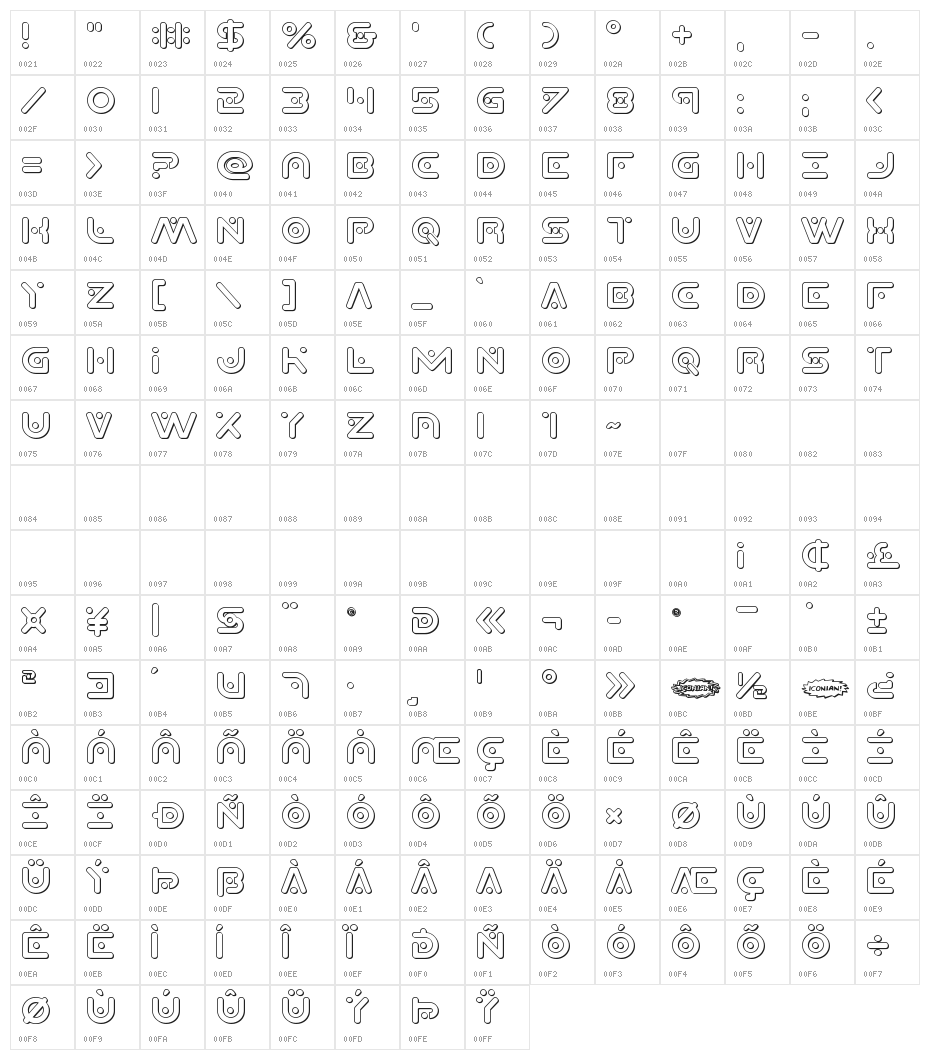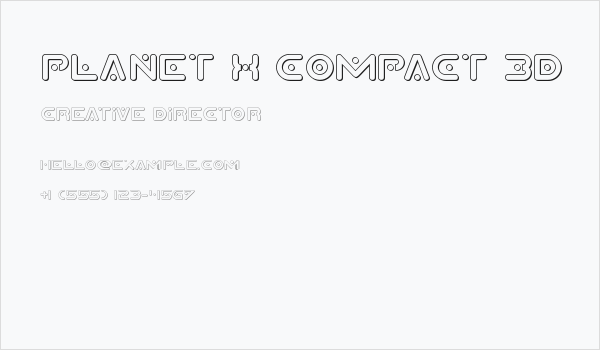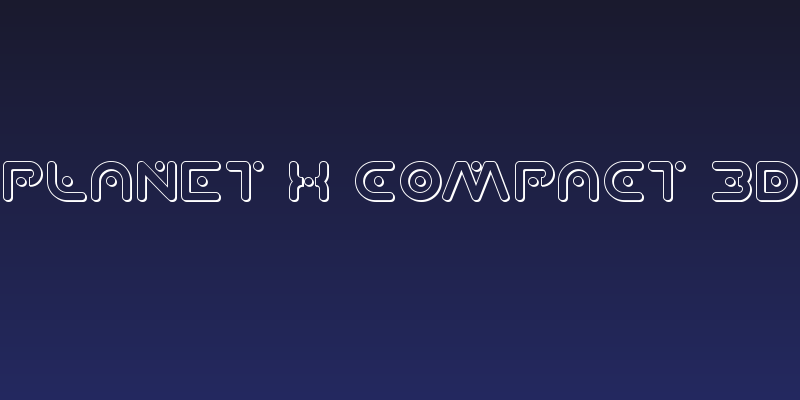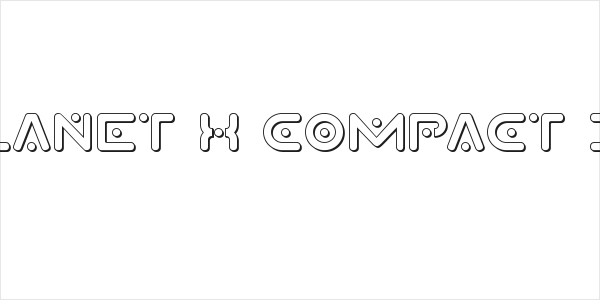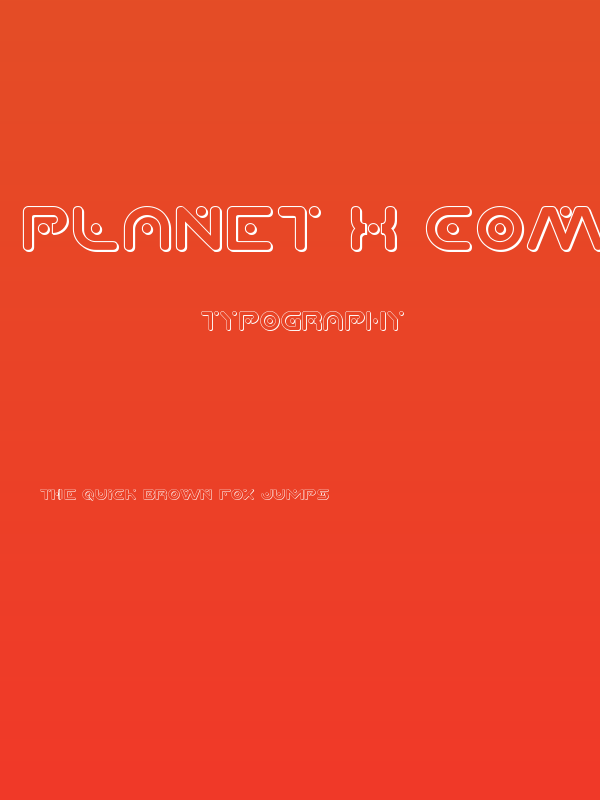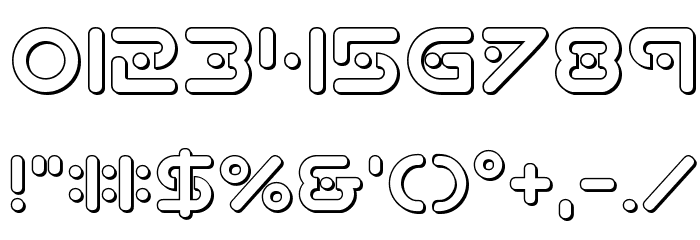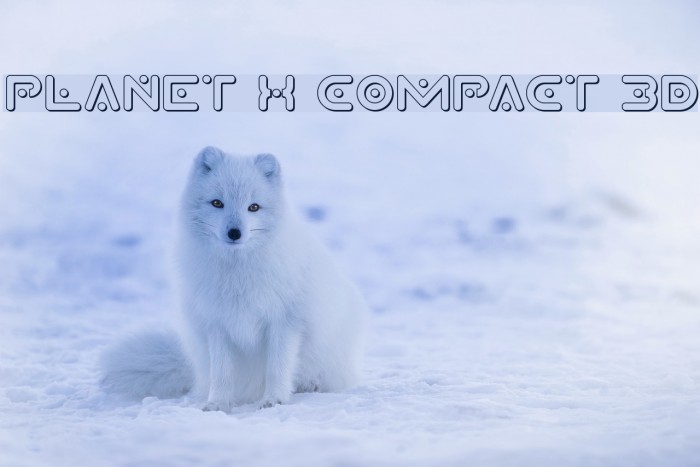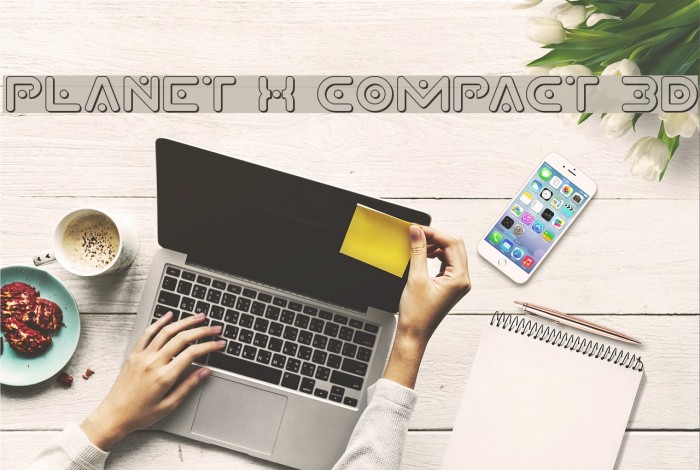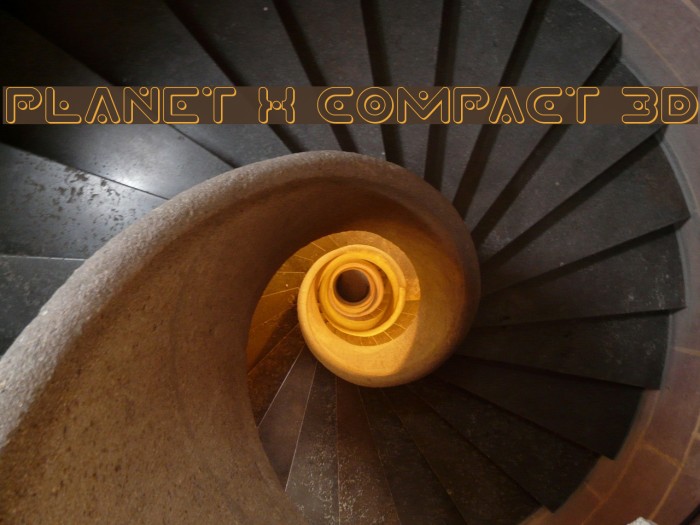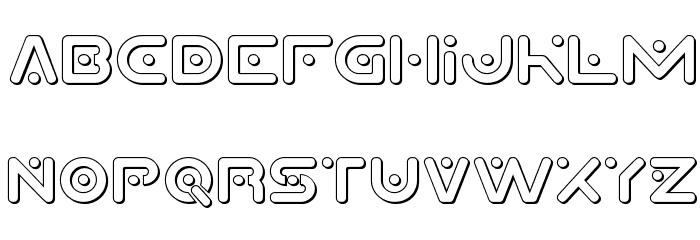
Planet X Compact 3D Font
Planet X Compact 3D Description
This font features a futuristic and geometric design with a 3D effect, characterized by its bold, rounded edges and hollow interior. The letters are constructed with a consistent line thickness, creating a uniform appearance across all characters. The uppercase and lowercase letters share similar design elements, maintaining a cohesive look. The numbers and special characters are designed to match the overall style, making them suitable for a variety of uses. The font's unique structure and modern aesthetic make it stand out, while its clear legibility ensures it remains functional.